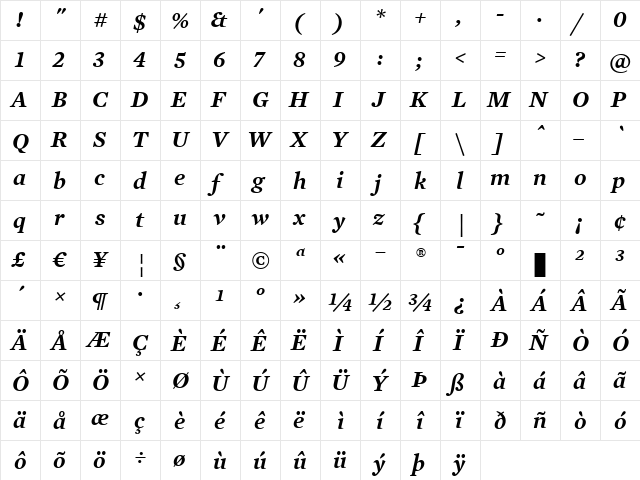
Mercury Text G2 SemiBold Italic
Design Context for Mercury Text G2 Typeface
Mercury Text G2 takes a measured approach to typography — its balanced proportions and neutral character make it a reliable workhorse for both digital and print work. The slanted form adds forward momentum and visual energy. The heavy weight commands attention and anchors typographic hierarchies.
Pro Tip: Use Mercury Text G2 for emphasis, pull quotes, and subheadings where its slanted energy can add rhythm to the layout.